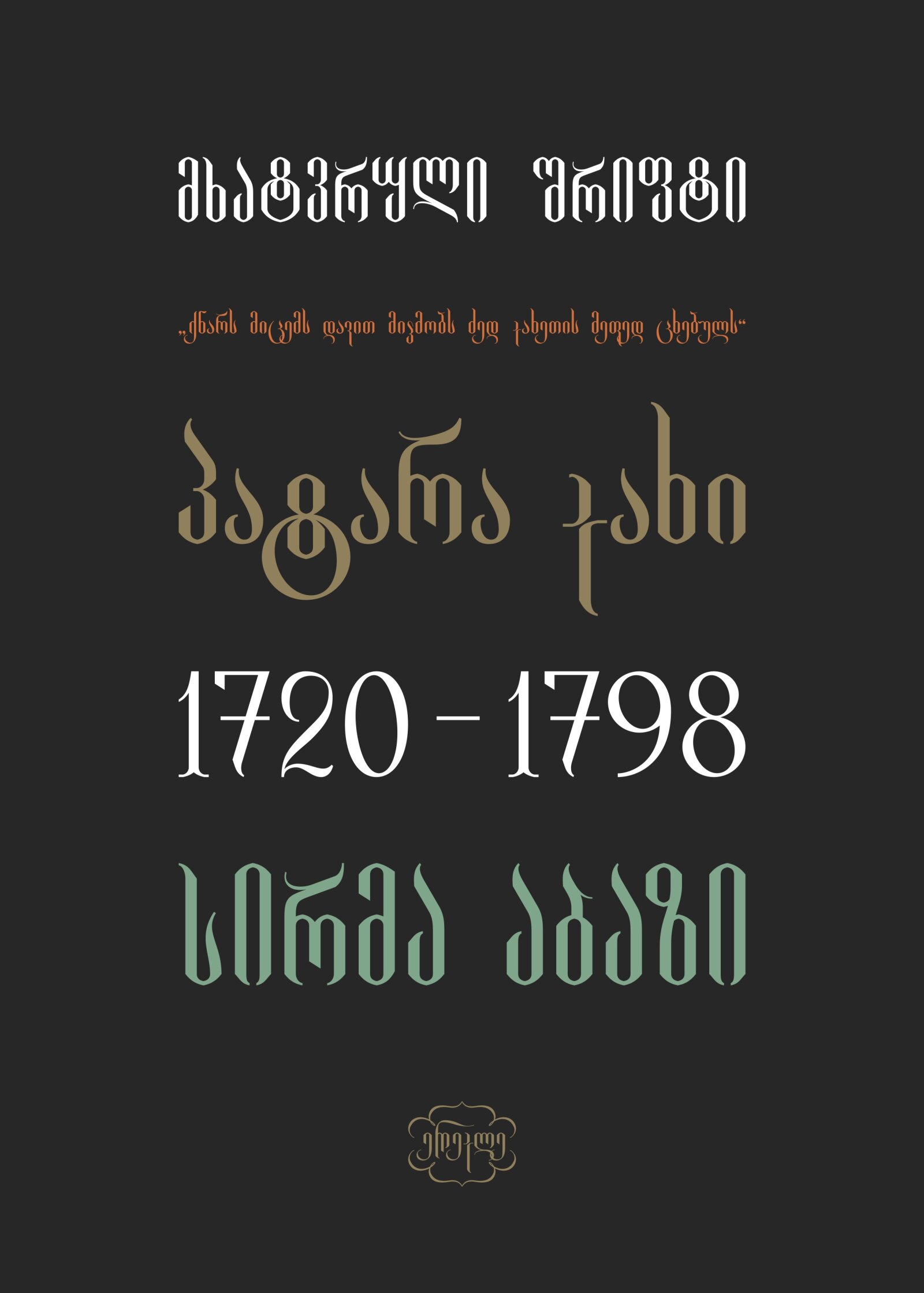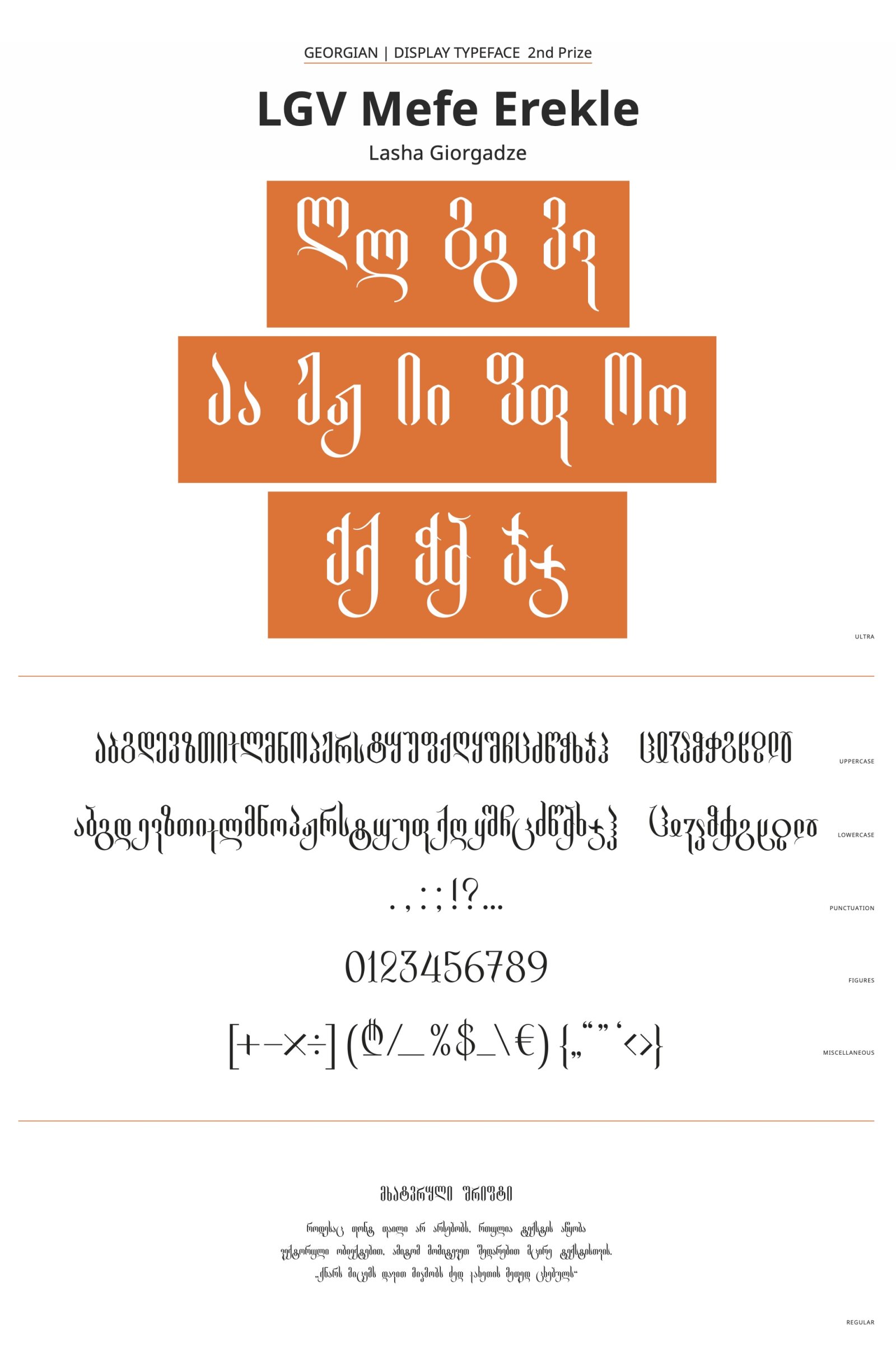
LGV Mefe Erekle
by Lasha Giorgadze
Georgian
The font draws inspiration from a classic Georgian sword, illustrated within the symbol "K". Rooted in historical traditions, it captures the essence of Georgian culture and its rich heritage. With both uppercase and lowercase characters, as well as authentic old Georgian symbols and alternative letters, it’s a comprehensive toolkit for design projects.